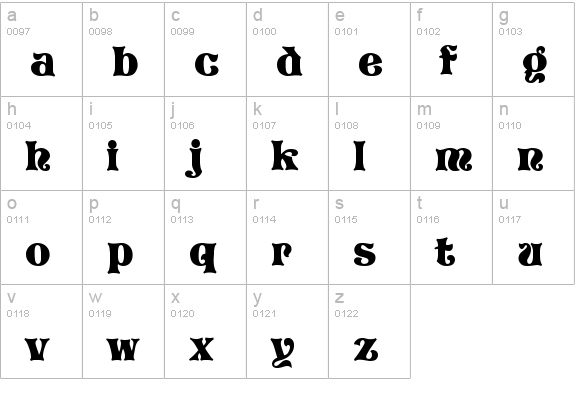
Vivian Regular Font Details
Vivian Regular is the standard, neutral variant in the Vivian typeface family \xE2\x80\x94 well suited to general body text, paragraphs, and standard typographic work.
Vivian Regular is a stunning font that exudes elegance and sophistication, perfect for adding a touch of class to any project. Its clean lines and graceful curves make it a versatile choice for a wide range of design applications, from logos and branding to invitations and editorial layouts. This font strikes the perfect balance between traditional and modern, with a timeless appeal that will never go out of style. Its classic letterforms are enhanced by subtle details and a balanced weight distribution, resulting in a harmonious and visually pleasing typeface. One of the best things about Vivian Regular is that it is absolutely free. Yes, you read that right! This exquisite font is freely available to download at FontsMarket.com. This means that you can elevate your designs without having to spend a dime. Whether you're a professional designer looking for a reliable font to add to your collection or a hobbyist looking to experiment with typography, Vivian Regular is a fantastic choice. Its versatility, elegance, and the fact that it is freely accessible make it an invaluable resource for any creative project. So why wait? Download Vivian Regular today and unlock a world of endless design possibilities. Whether you're designing for print or digital, this font is sure to make a lasting impression. Don't miss out on this incredible opportunity to enhance your designs with a beautiful font that won't cost you a penny. Head over to FontsMarket.com and get your hands on Vivian Regular now!